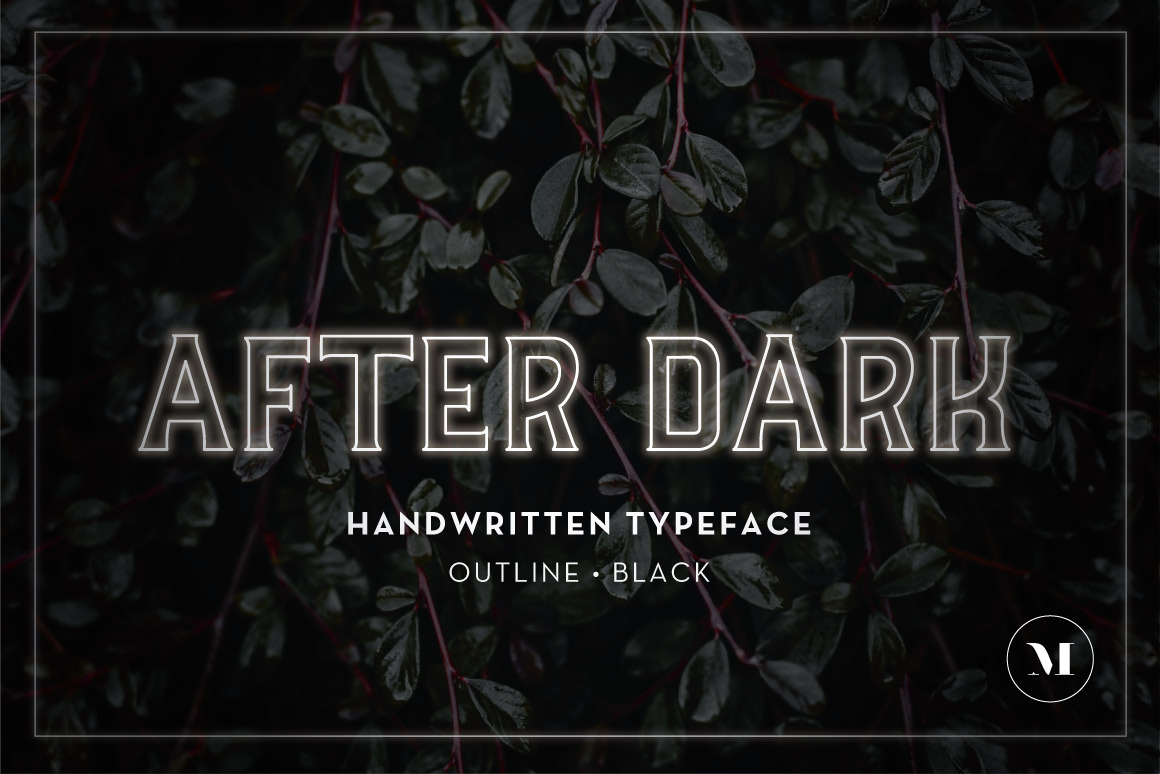
After Dark Typeface
After Dark is a moody, mysterious display typeface with vintage character. After Dark Black has little contrast between thick and thin lines, creating a masculine appearance. This typeface is a CAPS .otf.